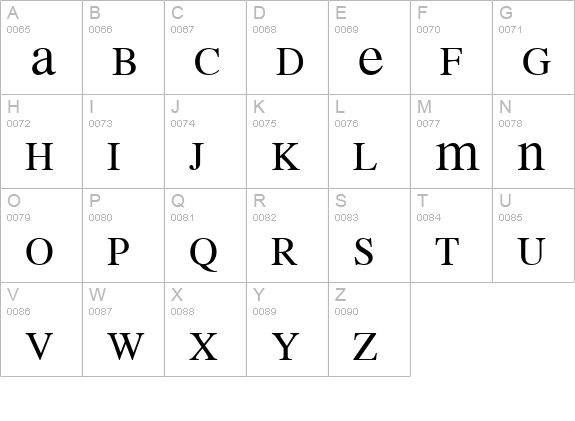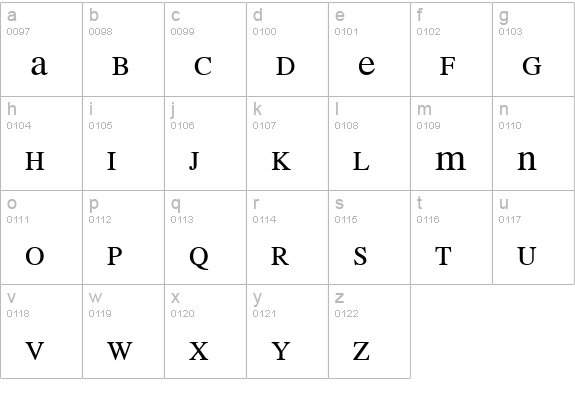
MEAN 26 Serif Font Details
Introducing MEAN 26 Serif font, a timeless and elegant typeface that exudes sophistication and charm. With its sleek lines and classic serifs, this font is perfect for adding a touch of refinement to any project. MEAN 26 Serif strikes the perfect balance between modernity and tradition, making it a versatile choice for a wide range of design applications. What sets MEAN 26 Serif font apart is not only its stunning aesthetic but also its accessibility. This premium font is available for free download exclusively at FontsMarket.com. Whether you're working on a branding project, editorial design, or any other creative endeavor, MEAN 26 Serif font is sure to elevate your work to the next level. Embrace the elegance and timelessness of MEAN 26 Serif font today, and bring a touch of sophistication to your designs with this freely available typeface.